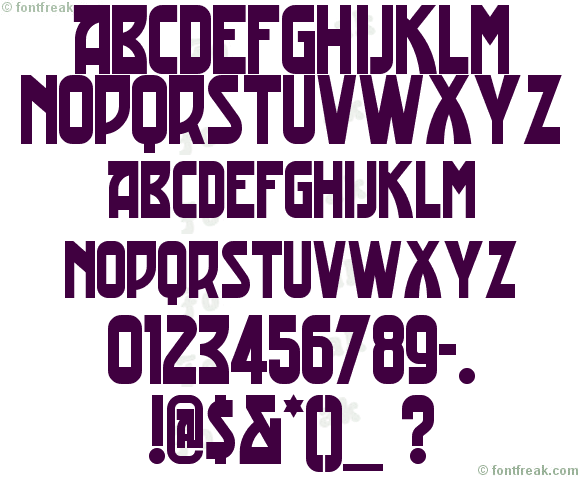
TradingPostNF
About Trading Post
The Trading Post font by Nick Curtis is a distinctive display typeface that beautifully captures the essence of rustic charm and vintage aesthetics. This font, classified under the decorative category, features a unique blend of bold and intricate letterforms that evoke a sense of nostalgia, making it an ideal choice for various design projects. The strokes are moderately thick, paired with subtle contrast that enhances readability while adding character. The spacing between letters allows for clarity without sacrificing style, making it suitable for both headlines and body text.
One of the standout features of the Trading Post font is its decorative elements, which include subtle serifs and slightly rounded edges that contribute to its inviting appearance. This makes it a perfect fit for creative applications such as wedding invitations, where a personal touch is desired, and movie posters that aim to capture attention with a retro flair. Additionally, it's well-suited for restaurant menus that want to convey a warm, welcoming atmosphere, as well as branding for artisanal products that emphasize craftsmanship and tradition.
The target audience for the Trading Post font includes graphic designers seeking to create unique visual identities, small business owners aiming to differentiate their brands, and content creators looking to enhance their projects with a touch of personality. The font’s freeware license makes it accessible for anyone looking to elevate their designs without budget constraints.
What sets the Trading Post font apart is its ability to blend modern usability with classic design elements, making it a versatile choice for both print and digital projects. With its charming aesthetic and practical features, the Trading Post font free download is an excellent addition to any designer's toolkit, ensuring that your creative endeavors will stand out in a crowded marketplace.